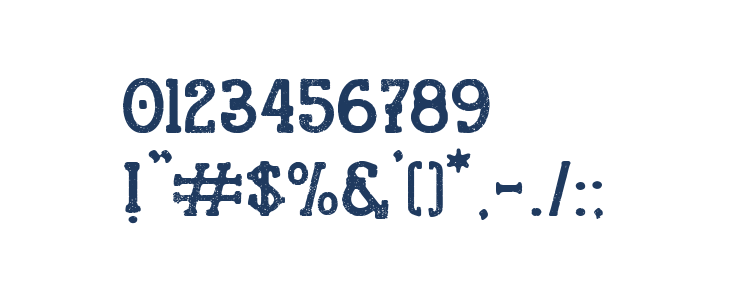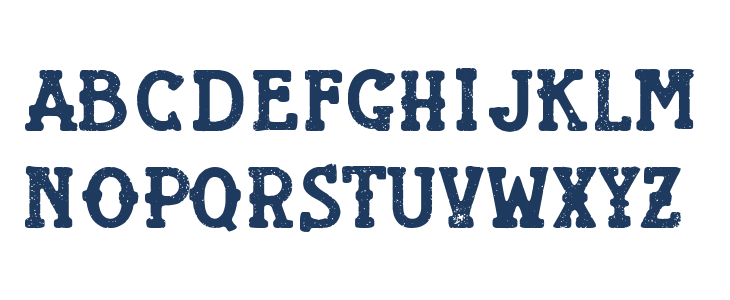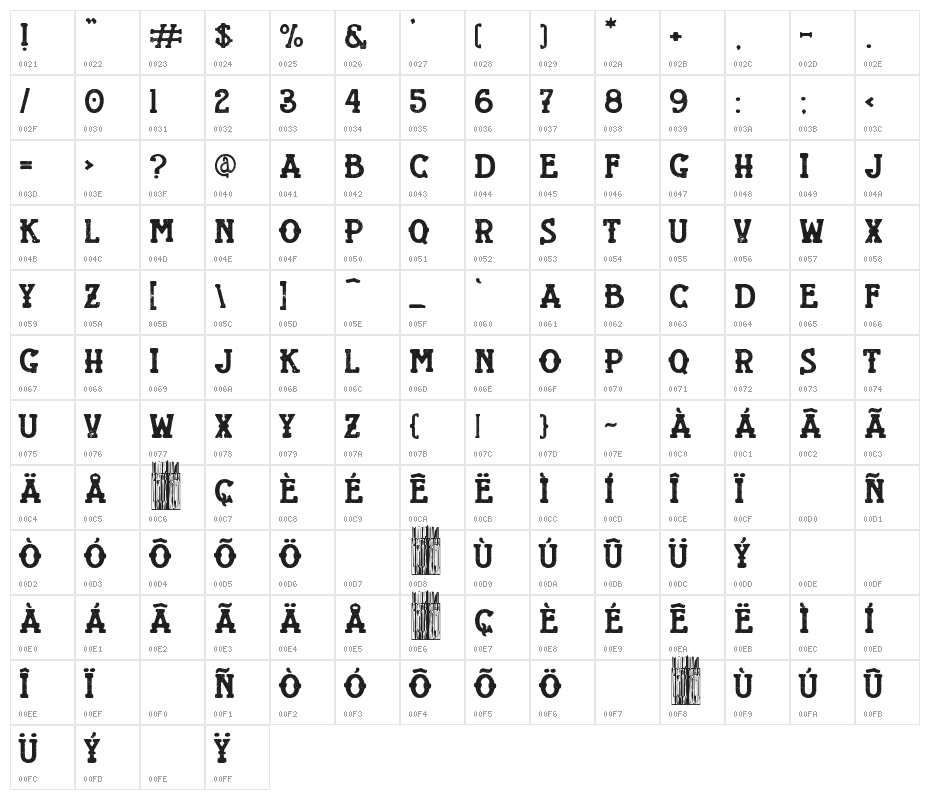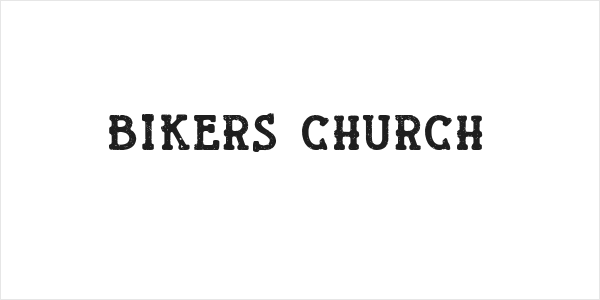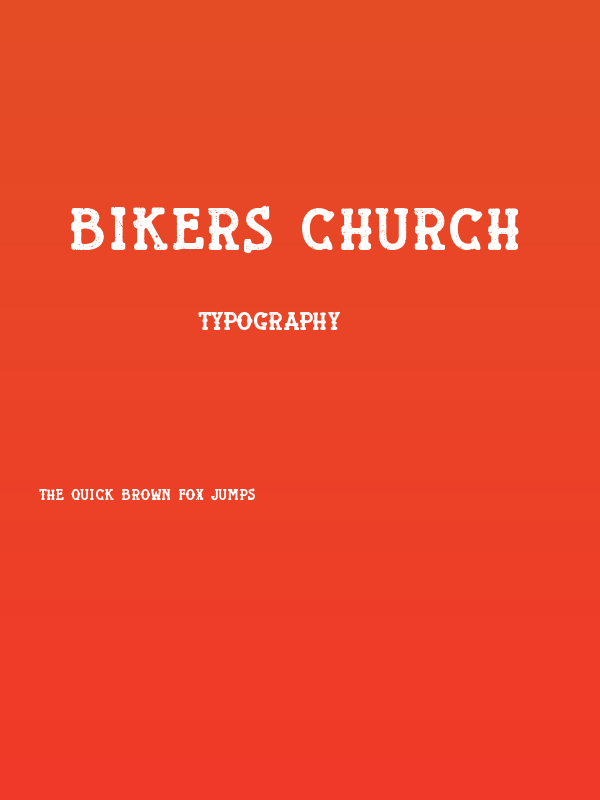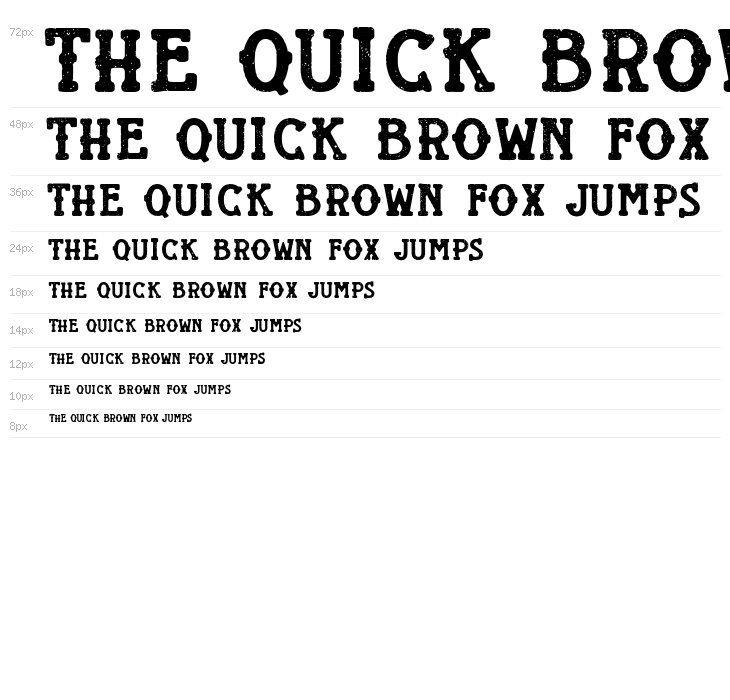
Bikers Church Font
Bikers Church Description
A bold, slab serif typeface with a distressed, textured appearance that mimics worn or stamped ink, featuring strong vertical and horizontal strokes and rounded terminals.
| Overall Style | Vintage, Decorative, Rugged |
| Use Case | Headlines, Logos, Posters, Signage |
| Proposed Projects | Posters, event flyers, branding for motorcycle or outdoor brands, vintage-themed designs, signage. |